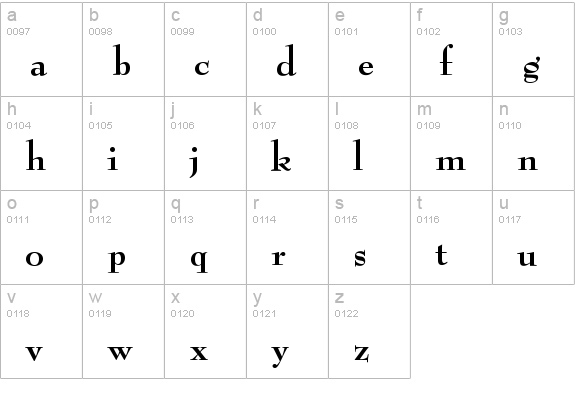
Bernhard Modern Bold is a strong, high-contrast variant in the Bernhard typeface family \xE2\x80\x94 well suited to headlines, attention-grabbing titles, and strong calls-to-action.
Bernhard Modern Bold font is a striking and elegant typeface that exudes sophistication and style. With its bold and commanding presence, this font is perfect for making a statement in any design project. The thick, strong strokes of Bernhard Modern Bold make it ideal for headlines, titles, and other prominent text elements. This font is not only visually appealing but also highly versatile, suitable for a wide range of design applications. Whether you're creating posters, branding materials, or editorial layouts, Bernhard Modern Bold will add a touch of class and professionalism to your work. Best of all, Bernhard Modern Bold is available for free download at FontsMarket.com. This means you can easily access this beautiful font and incorporate it into your projects without any cost. Don't miss out on this opportunity to enhance your designs with the timeless elegance of Bernhard Modern Bold.